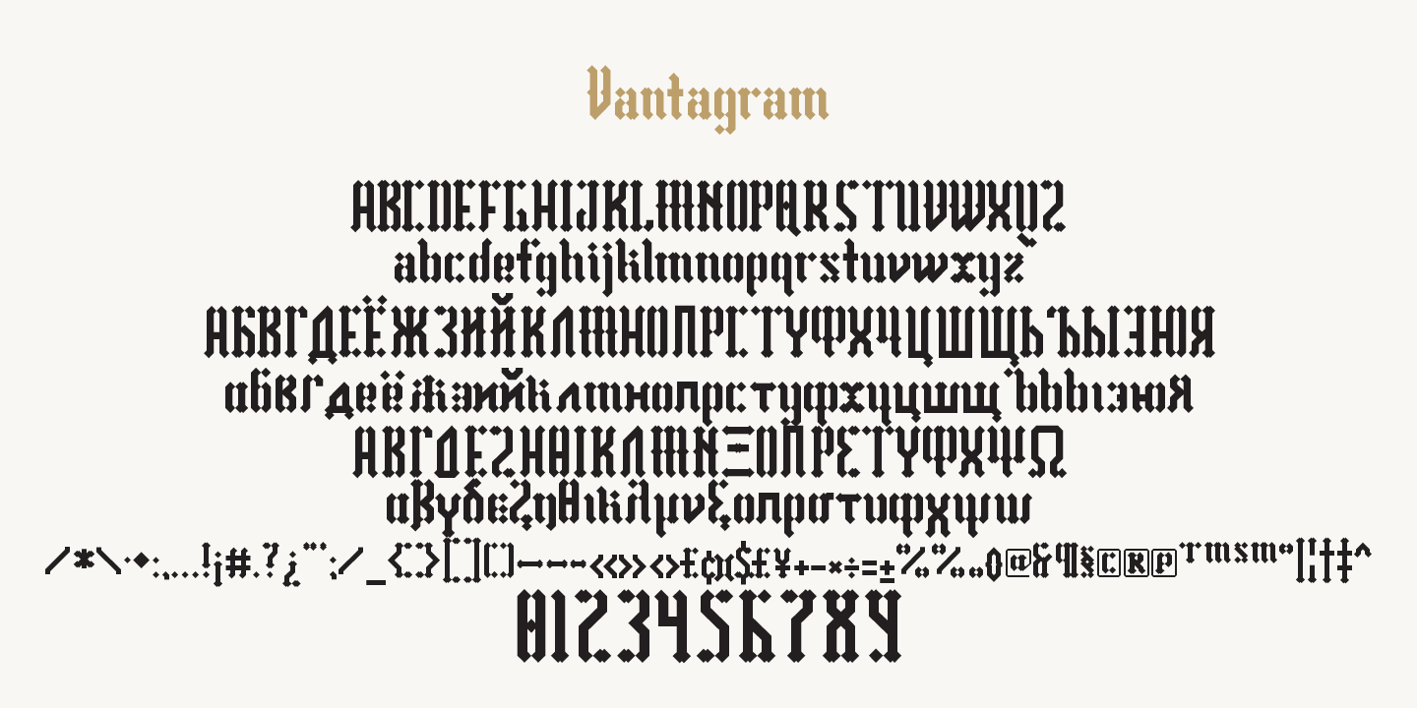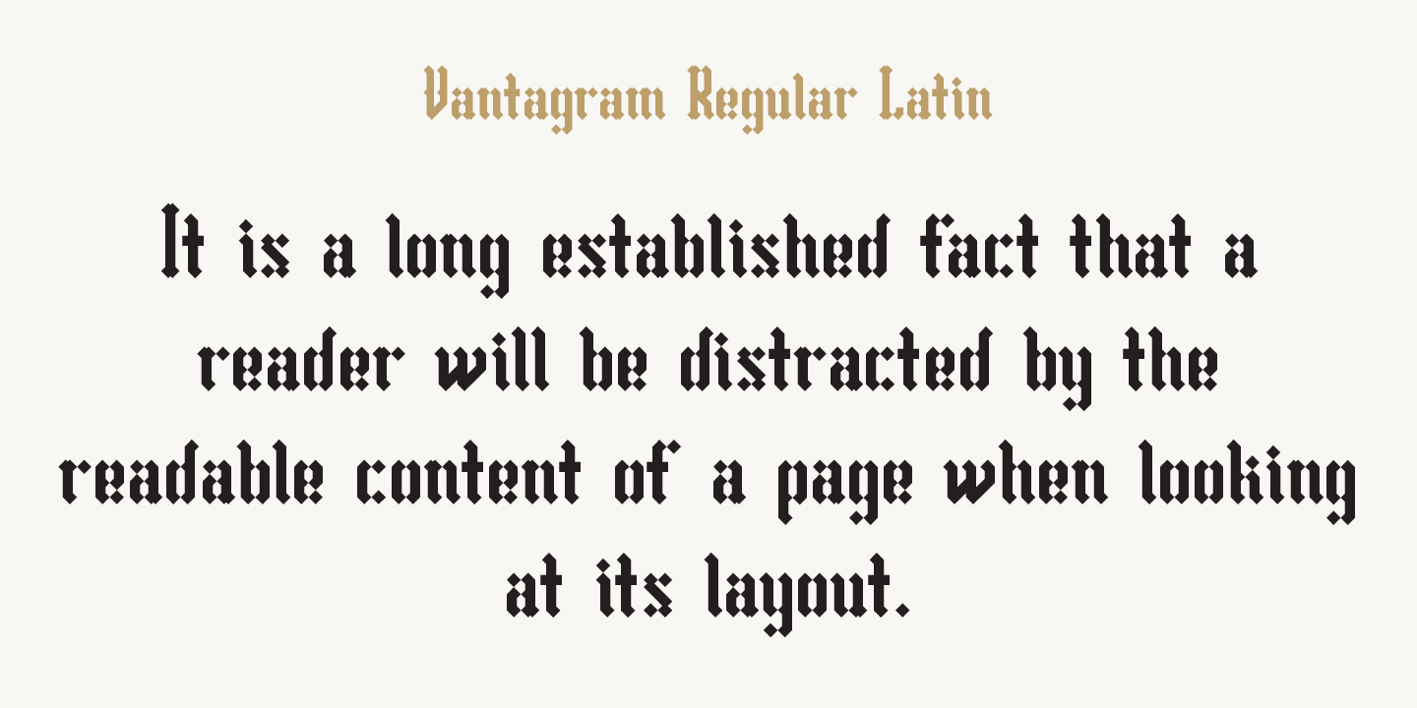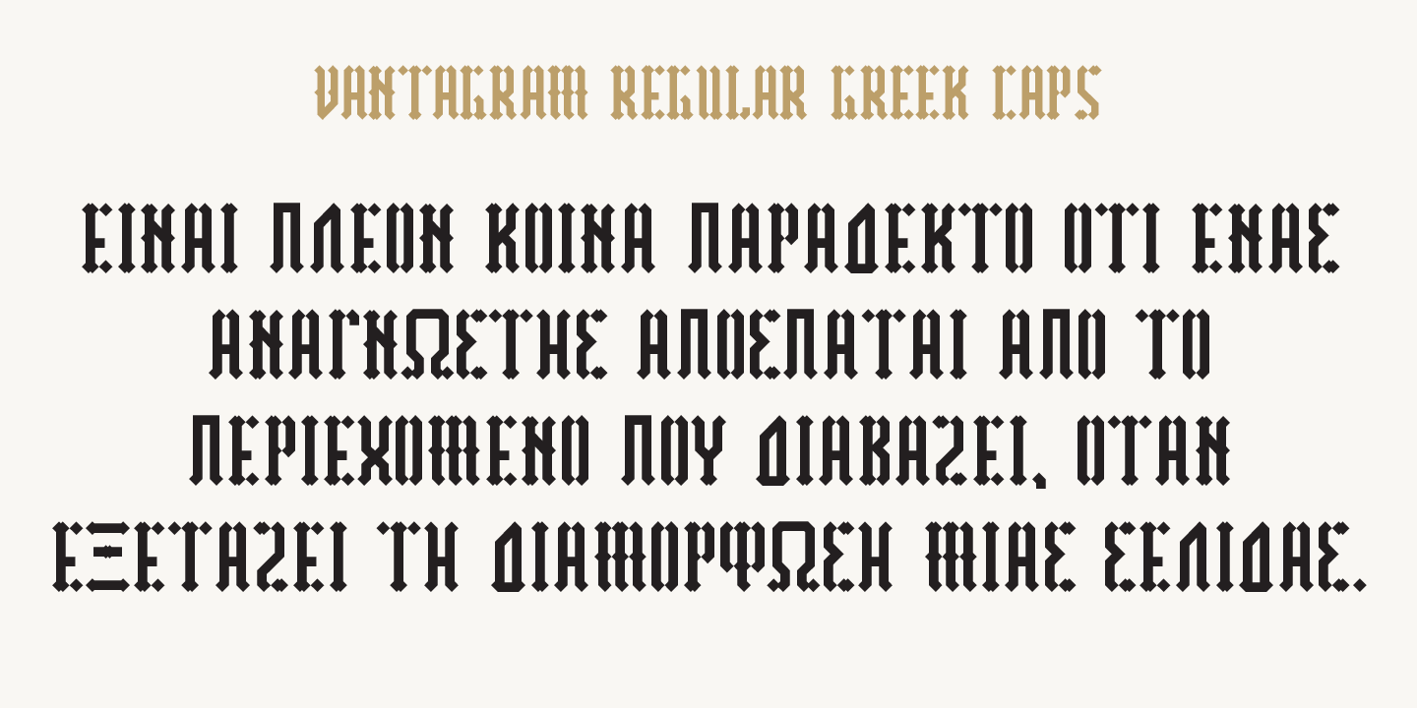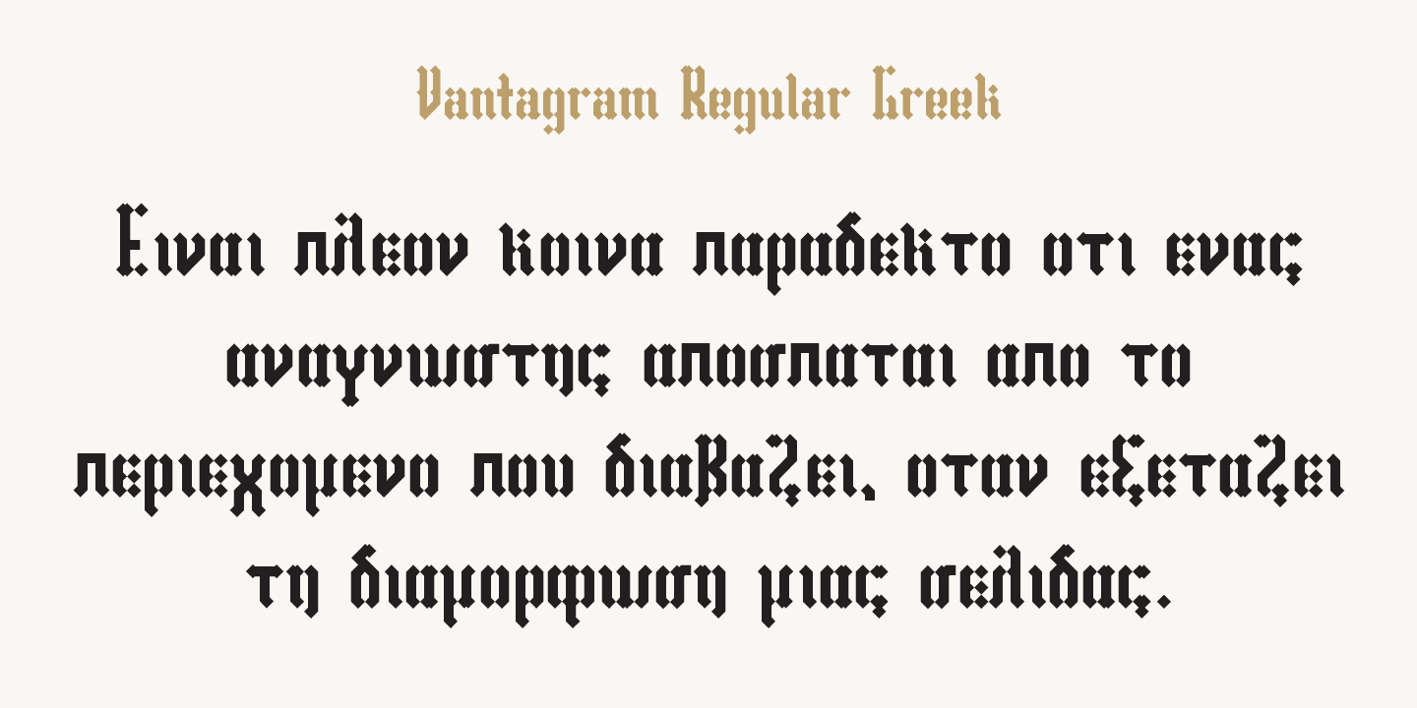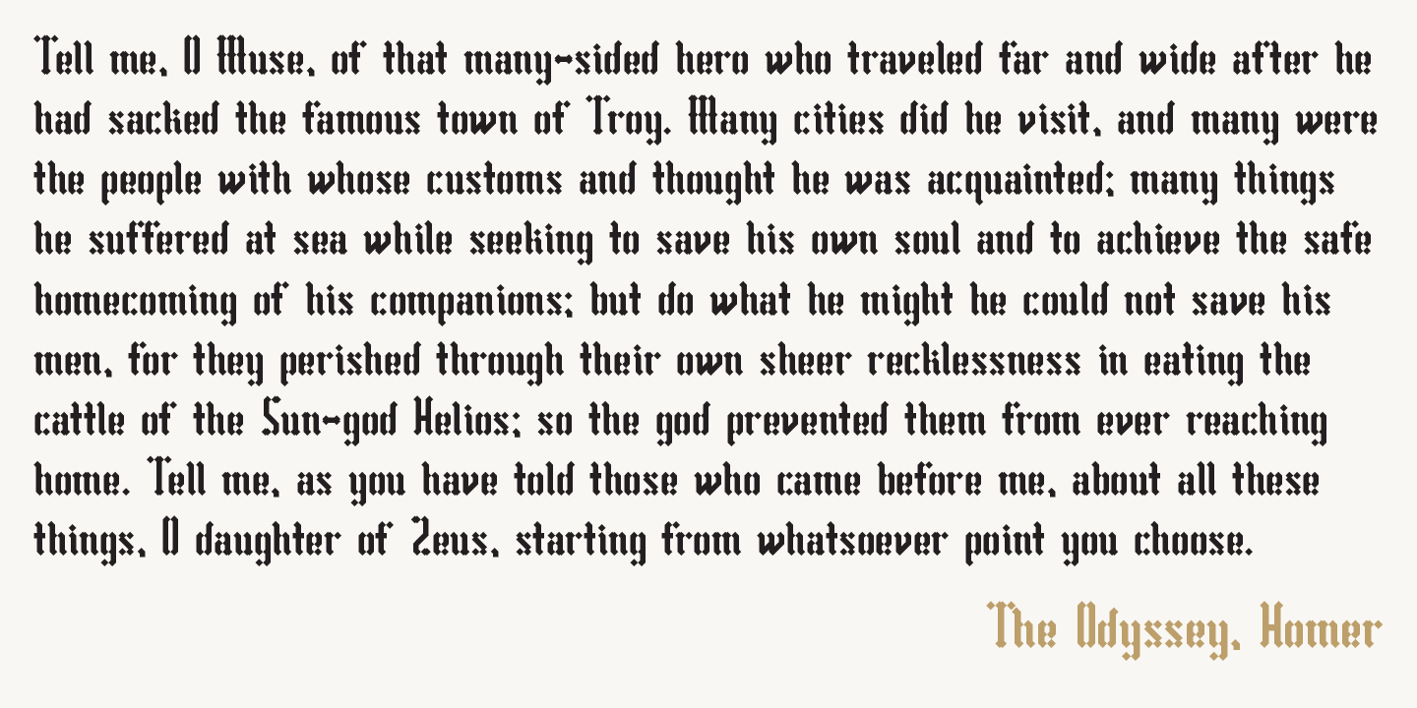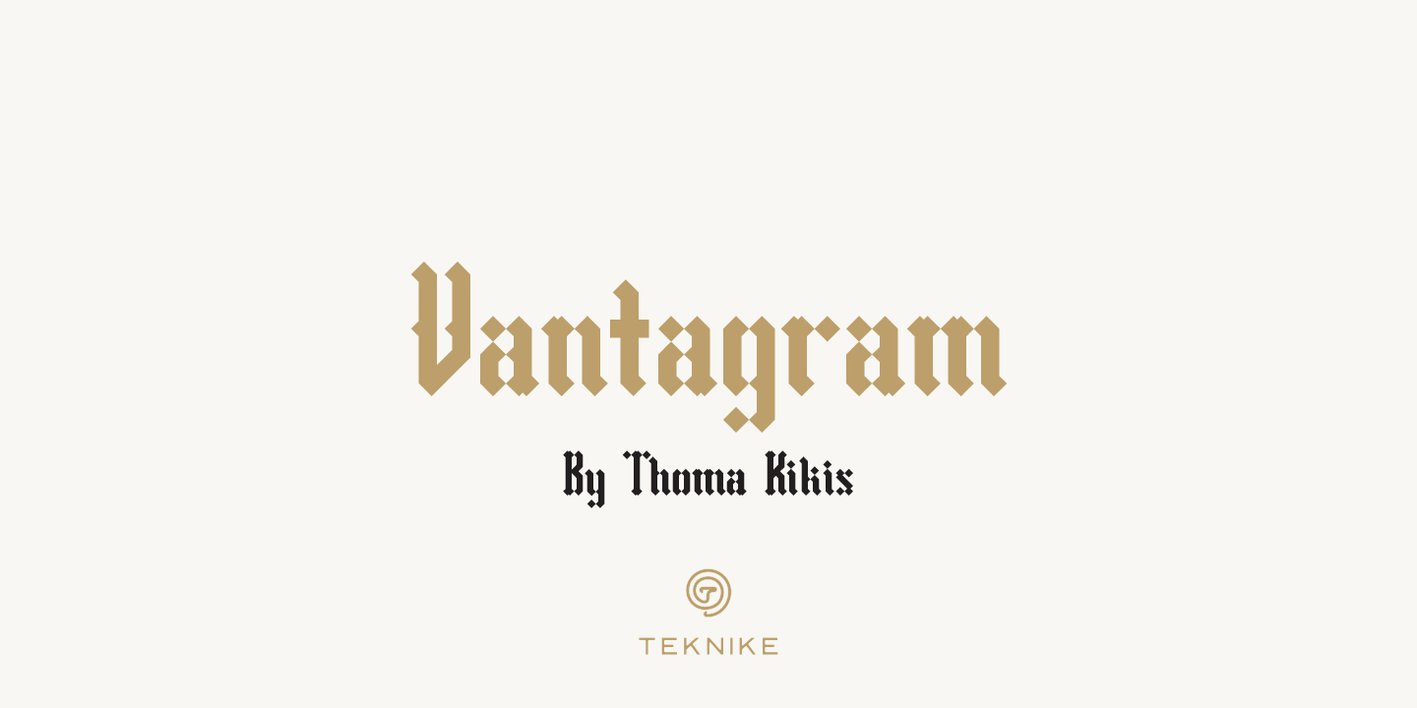
Vantagram Font
Vantagram is a modern display font. The typeface is made from basic square geometry. It is inspired by blackletter typefaces of the medieval period in Europe. The Vantagram name is a combination of two words derived from “vanta” French for boast and “gram” Greek for letter or that which is drawn. Vantagram is great for display work, quotes, titles, headings and posters.